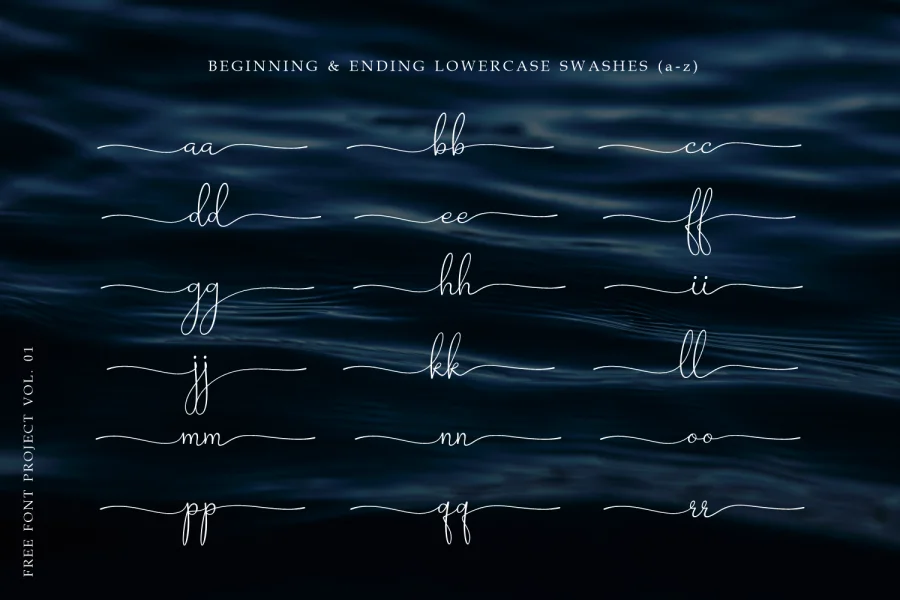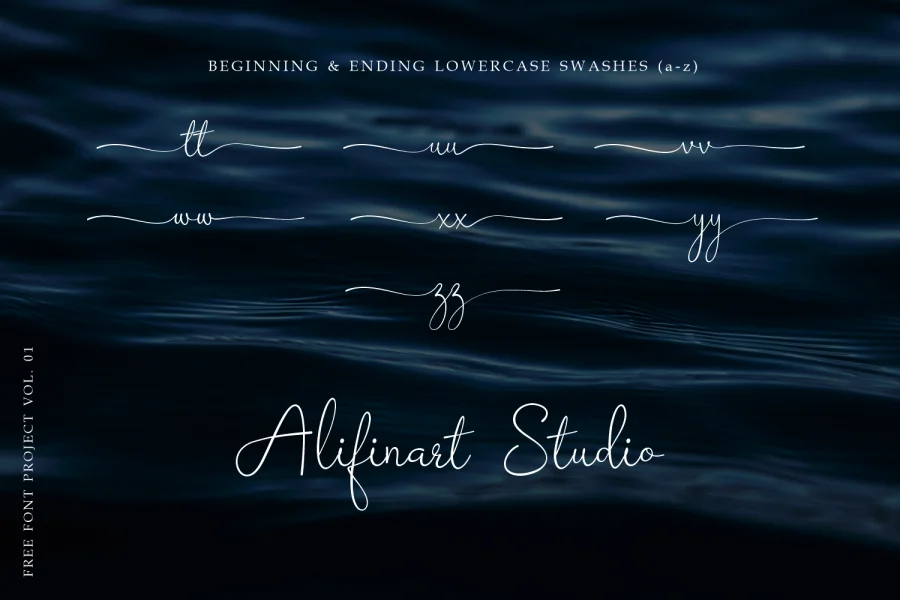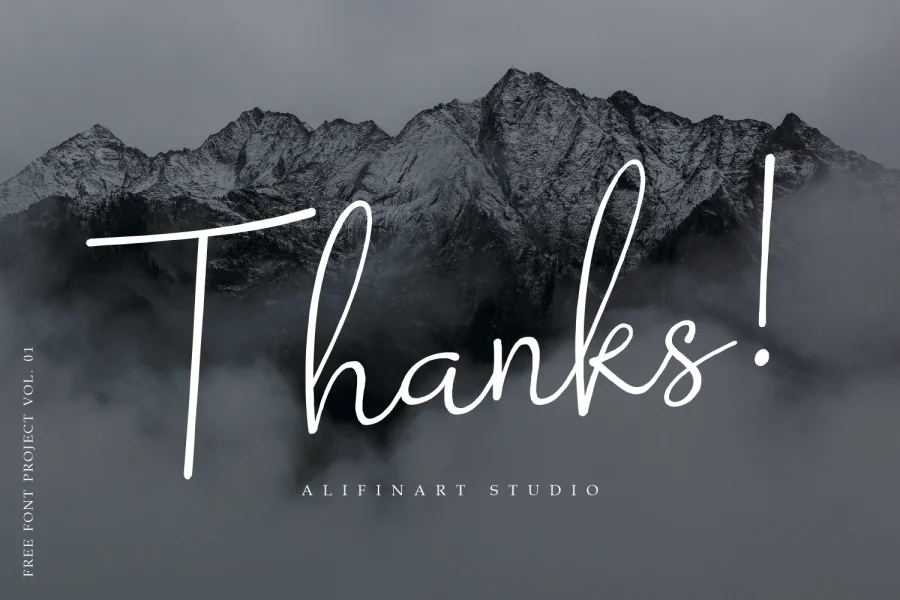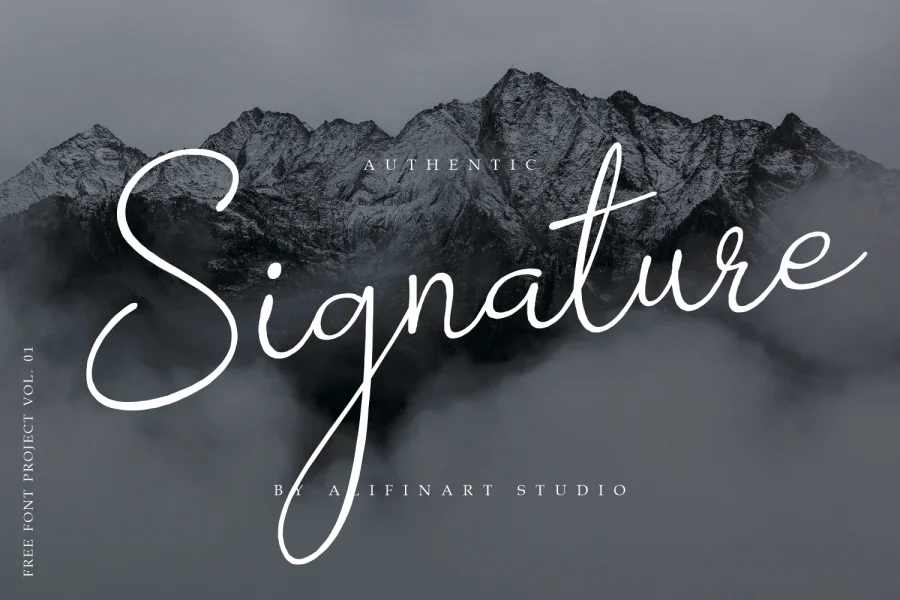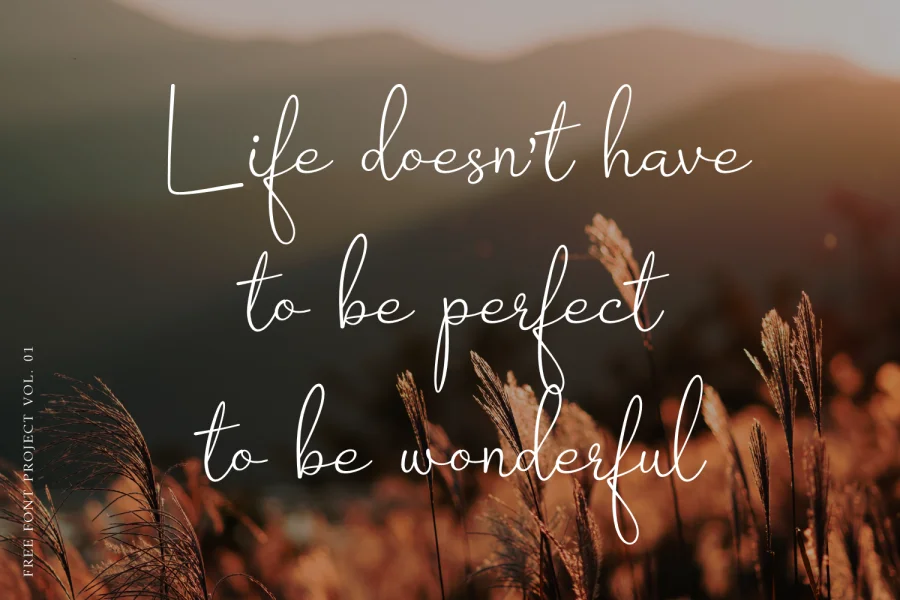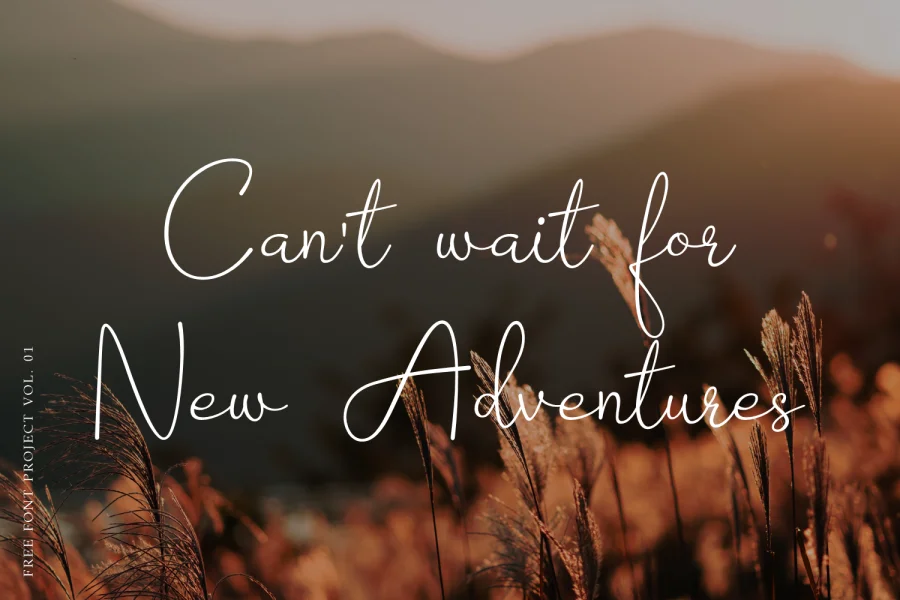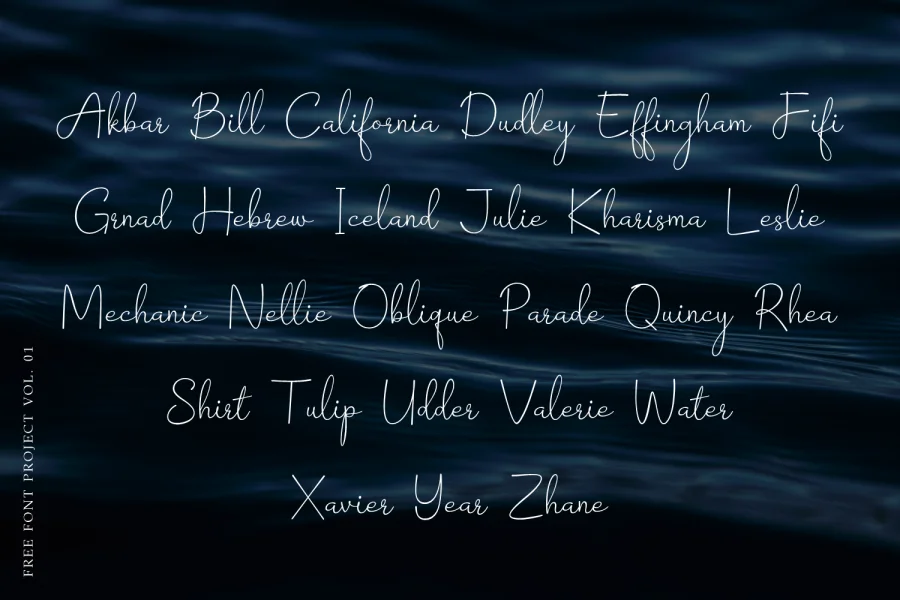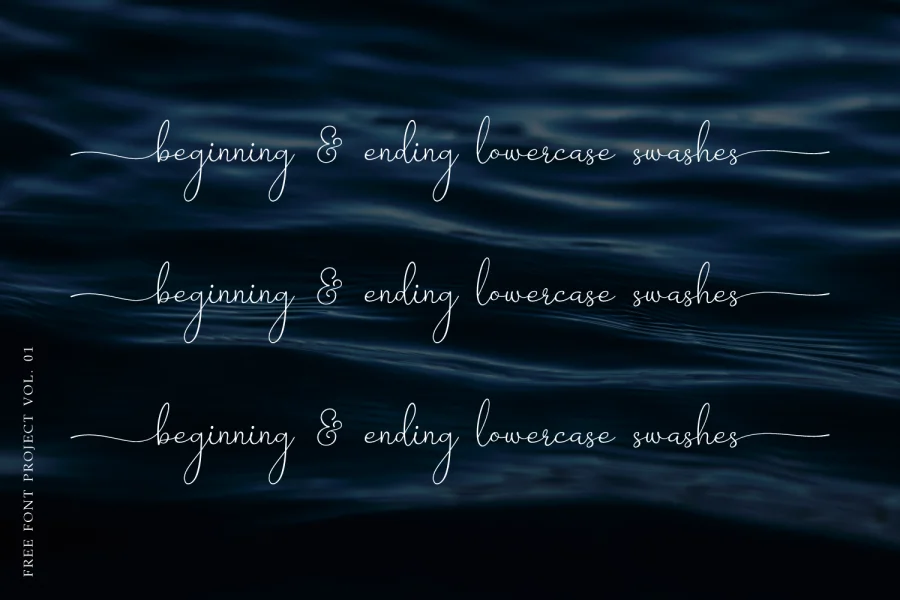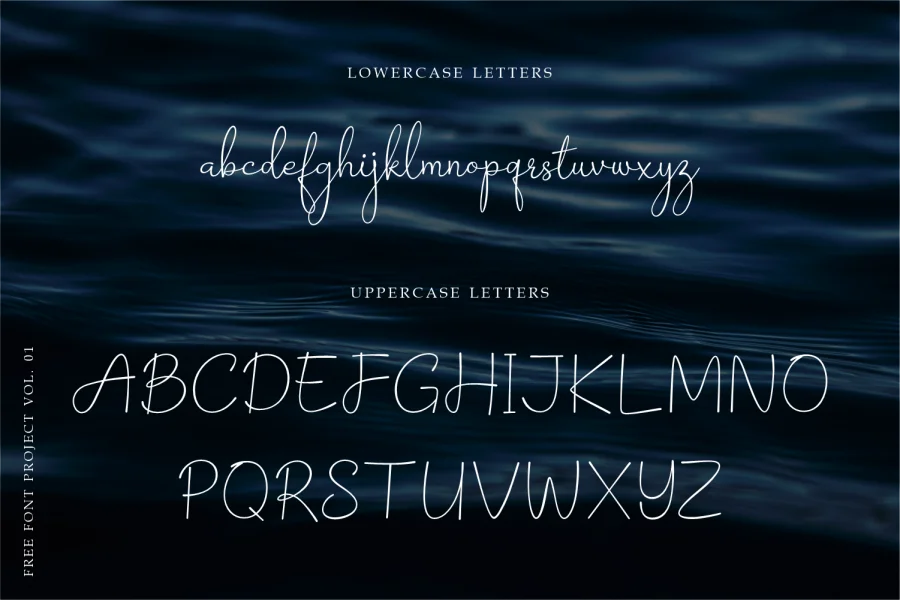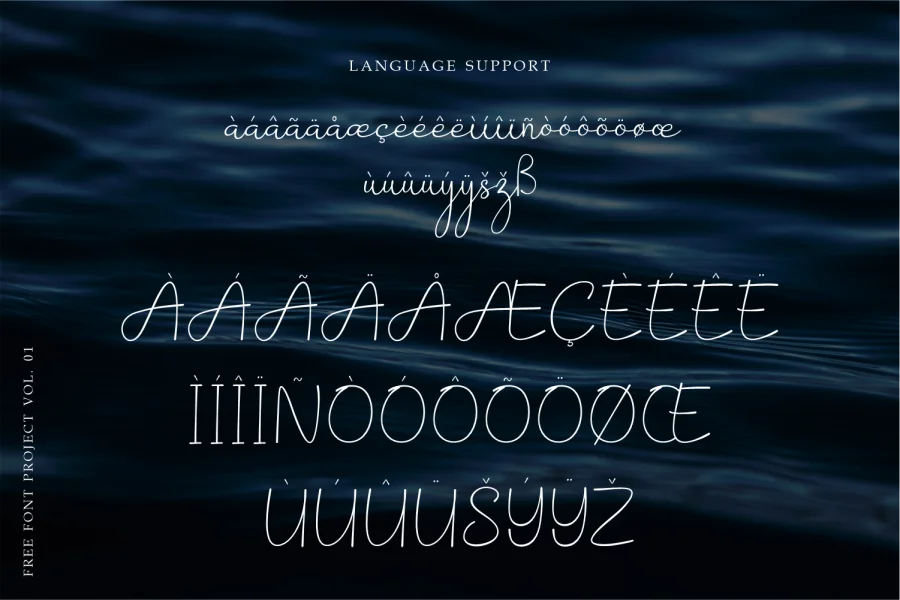
Barokah Signature by Alifinart Studio
Barokah Signature is a unique and elegant font. This font design is a blend of the soft and bold designs that are the hallmark of a signature font. The main inspiration for this font is the handwritten style of writing using an ink pen.
Barokah Signature is a free font project V.01 created by Alifinart Studio in February 2021.